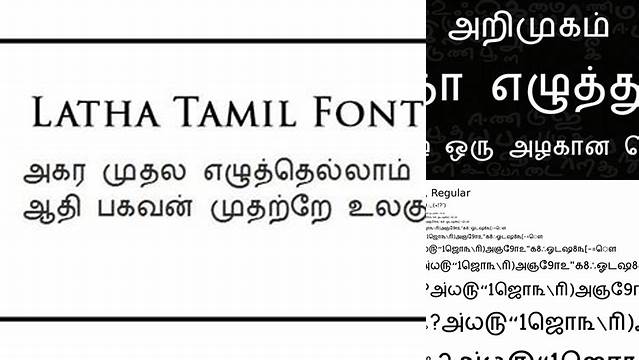
Latha Tamil Font: Free Download For Stunning Typography
Latha Tamil font is a popular choice for those seeking a clear, legible, and aesthetically pleasing typeface for Tamil script. Its elegant design makes it suitable for a wide range of applications, from print media to digital platforms. If you're looking to enhance your projects with a beautiful Tamil font, Latha is an excellent option, and the best part is, it's available for free download! In this article, we'll dive deep into everything you need to know about Latha Tamil font, including its history, characteristics, where to download it safely, how to install it, and its various uses. Let's explore the world of Latha and see how it can elevate your typography game, guys!
1. What is Latha Tamil Font?
Latha is a highly acclaimed Tamil font known for its clarity and readability. It's a sans-serif font, meaning it doesn't have the small decorative strokes (serifs) that some other fonts have. This makes it particularly well-suited for on-screen reading, where serifs can sometimes appear blurry. The font's design is simple yet elegant, making it versatile for various applications, from body text to headlines. When you're working on a project that requires Tamil script, Latha provides a reliable and aesthetically pleasing solution. Understanding its characteristics and how it differs from other Tamil fonts is key to choosing the right typeface for your needs. Think of it as having a versatile tool in your design arsenal – one that can adapt to different projects and maintain a professional look.
2. History and Development of Latha Font
Understanding the history of Latha Tamil font gives you a deeper appreciation for its design and purpose. Latha was developed as part of a larger effort to create high-quality fonts for Indian languages. The goal was to provide clear and legible fonts that could be used across various platforms and devices. This was particularly important as digital communication and publishing became more prevalent. The designers behind Latha paid careful attention to the nuances of the Tamil script, ensuring that the font accurately represented the language's unique characters and ligatures. The development process involved extensive testing and refinement to optimize readability and visual appeal. The font's widespread adoption is a testament to its success in meeting these goals. So, when you use Latha, you're not just using a font; you're using a piece of typographic history that has been carefully crafted for clarity and elegance.
3. Key Features and Characteristics of Latha Font
Latha Tamil font boasts several key features that make it a popular choice among designers and users. Its sans-serif design ensures clean lines and a modern look. The font's uniform stroke weight contributes to its excellent readability, especially in longer texts. Latha also includes a comprehensive set of Tamil characters, symbols, and ligatures, allowing for accurate and nuanced representation of the language. The font's spacing and kerning (the space between letters) are carefully optimized to enhance readability and visual harmony. This attention to detail is what sets Latha apart and makes it suitable for various applications, from formal documents to creative projects. Whether you're designing a website, creating a presentation, or writing a report, Latha's key features ensure your text looks professional and is easy to read. It’s like having a reliable tool that consistently delivers excellent results.
4. Latha Font vs. Other Tamil Fonts
When choosing a Tamil font, it's helpful to understand how Latha compares to other options. While many Tamil fonts are available, Latha stands out for its clarity, readability, and versatility. Some fonts might have a more ornate or stylized design, which can be suitable for specific purposes but might not be as practical for everyday use. Other fonts might not have the same level of character support or optimization for digital screens. Latha strikes a balance between elegance and functionality, making it a solid choice for a wide range of applications. Its clean design ensures that the text remains legible even at smaller sizes, which is crucial for body text and online content. By comparing Latha with other Tamil fonts, you can better appreciate its strengths and determine whether it aligns with your project's needs. It's like comparing different tools in a toolbox to find the one that best fits the job at hand.
30. Conclusion: Why Latha Font is a Great Choice
In conclusion, Latha Tamil font is a fantastic choice for anyone looking for a clear, legible, and versatile font for Tamil typography. Its clean design, excellent readability, and Unicode compatibility make it suitable for a wide range of applications, from web design to print media, and everything in between. Whether you're creating professional documents, designing social media graphics, or working on personal projects, Latha can help you achieve a polished and professional look. And with its free availability, it's an accessible option for anyone. So, guys, if you haven't already, give Latha a try and see how it can elevate your typography game! It’s like discovering a hidden gem – a tool that enhances your work and brings your creative visions to life.